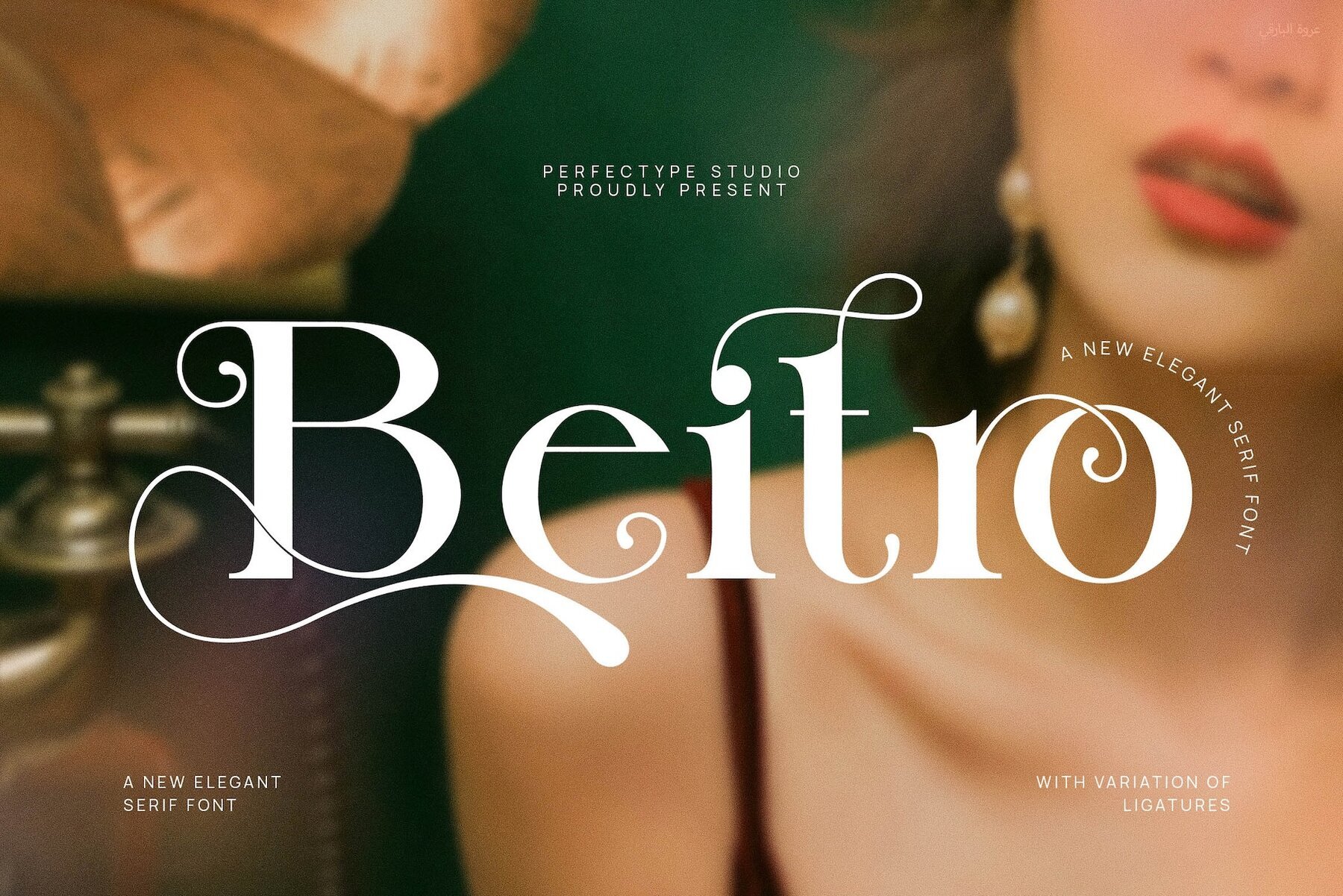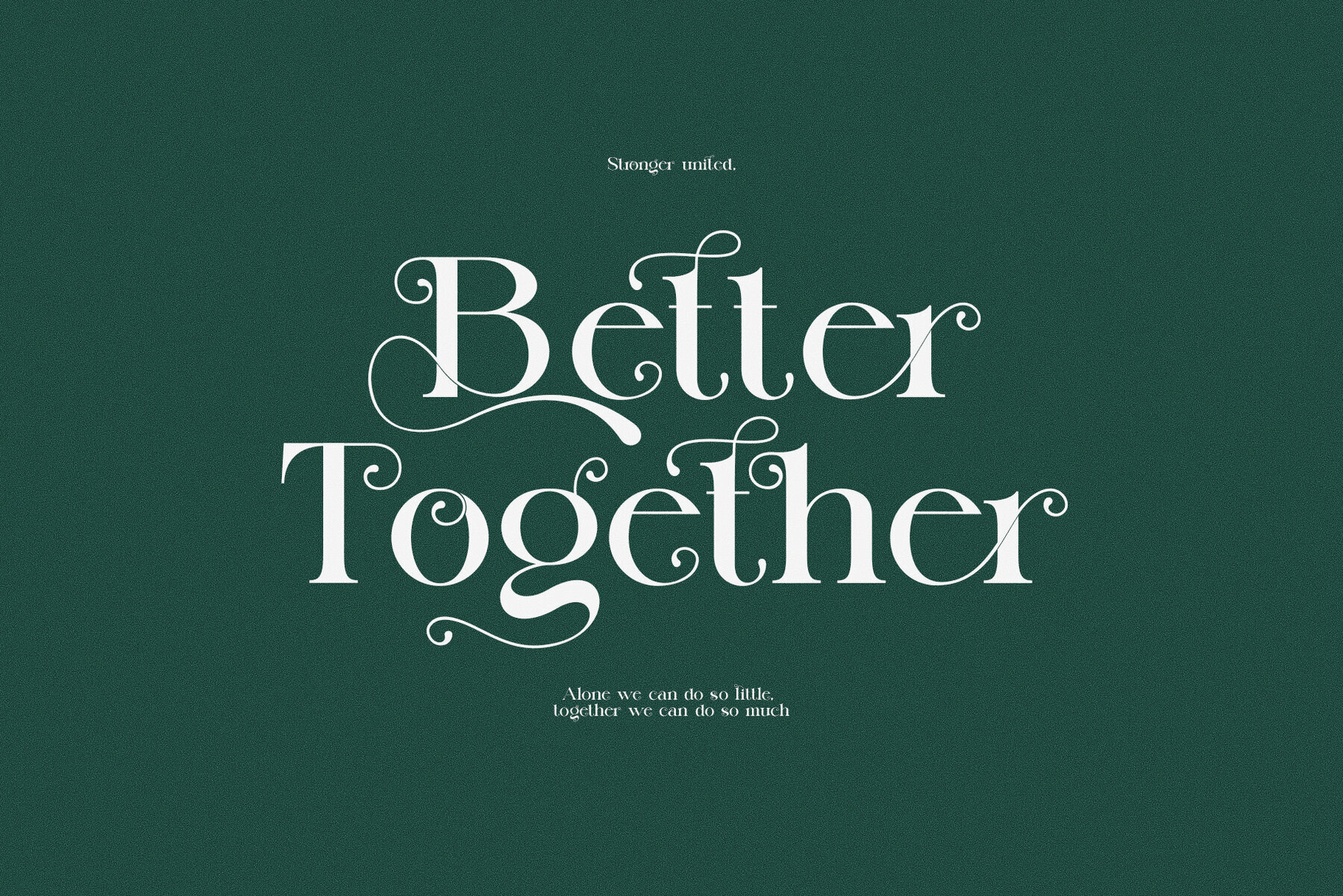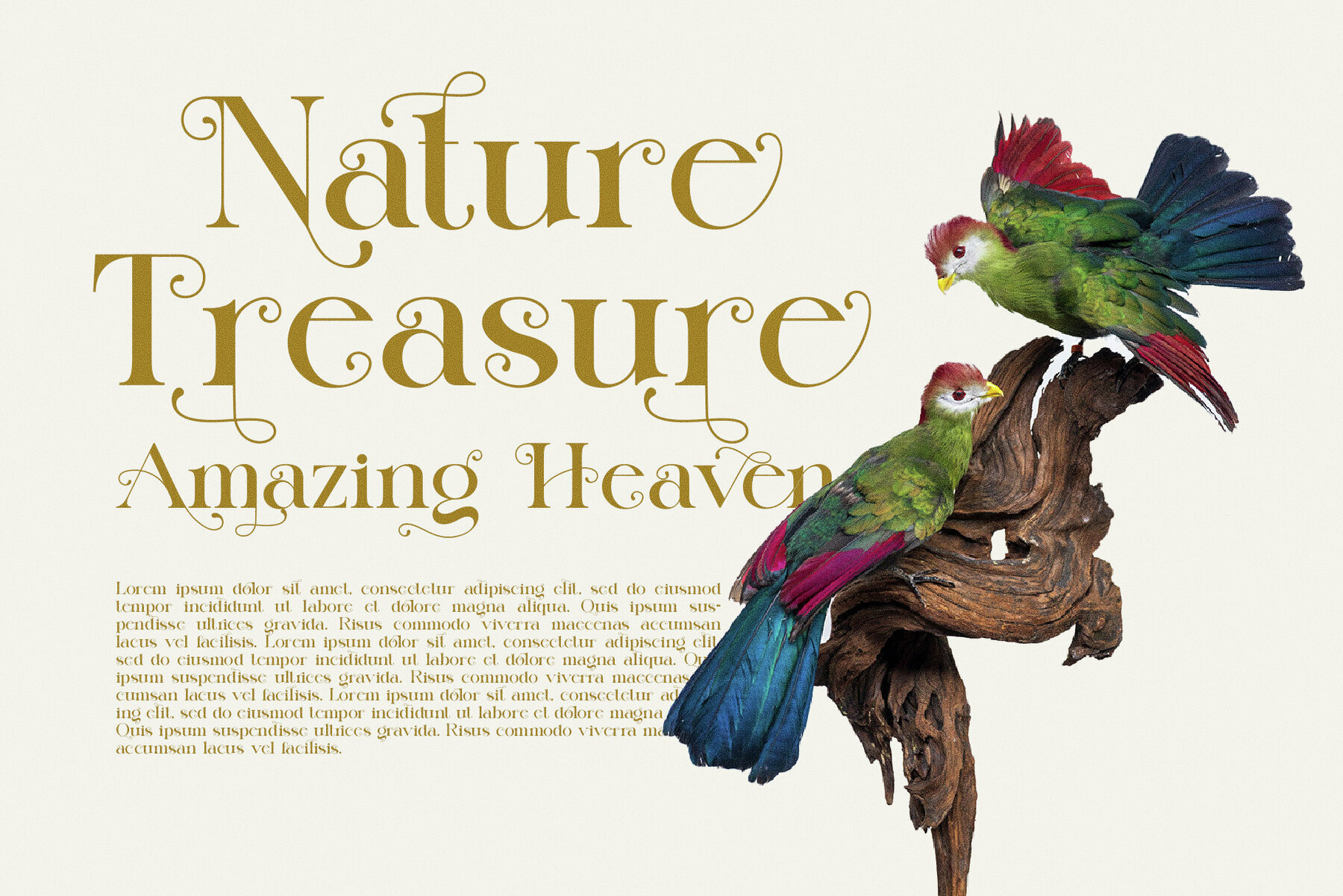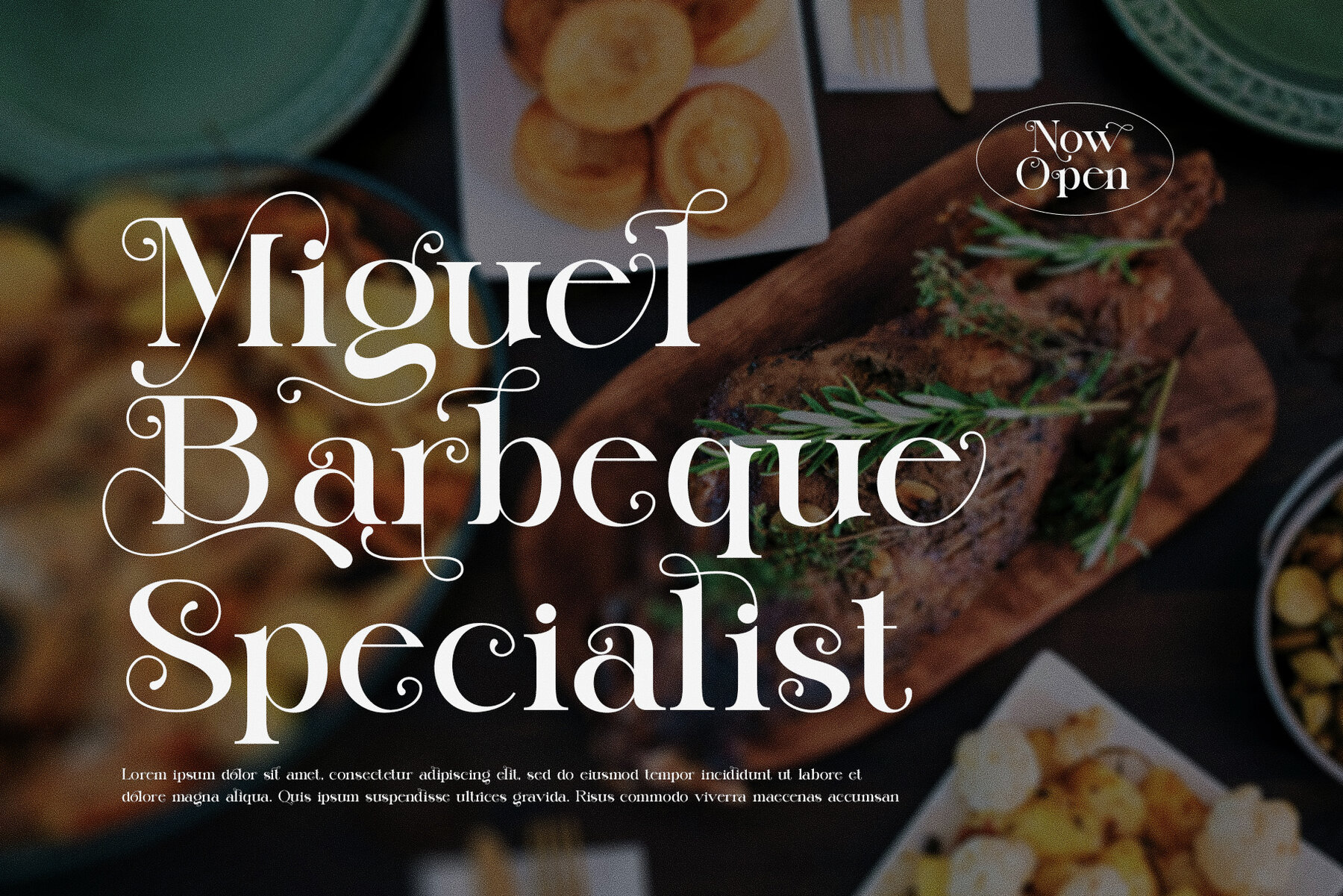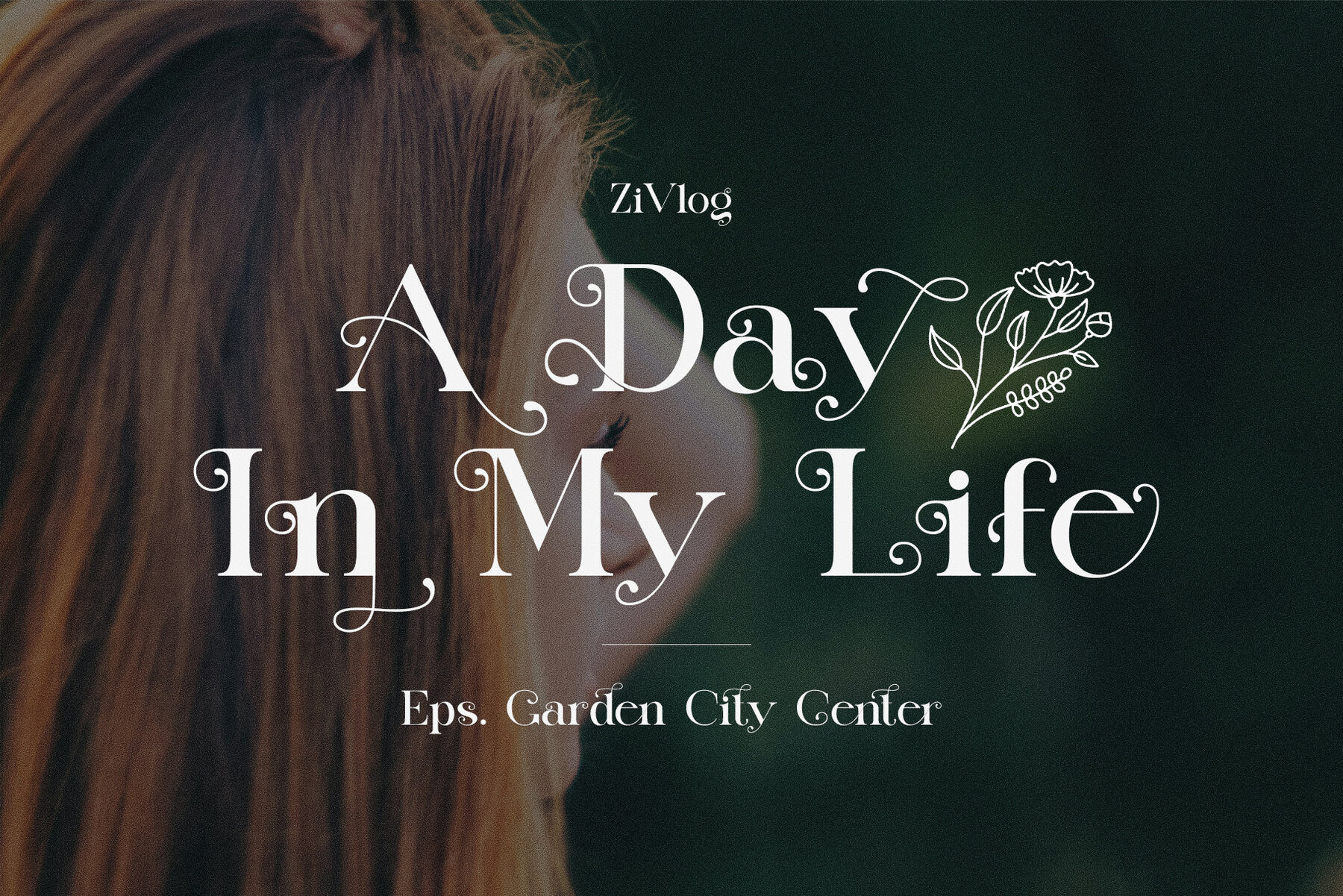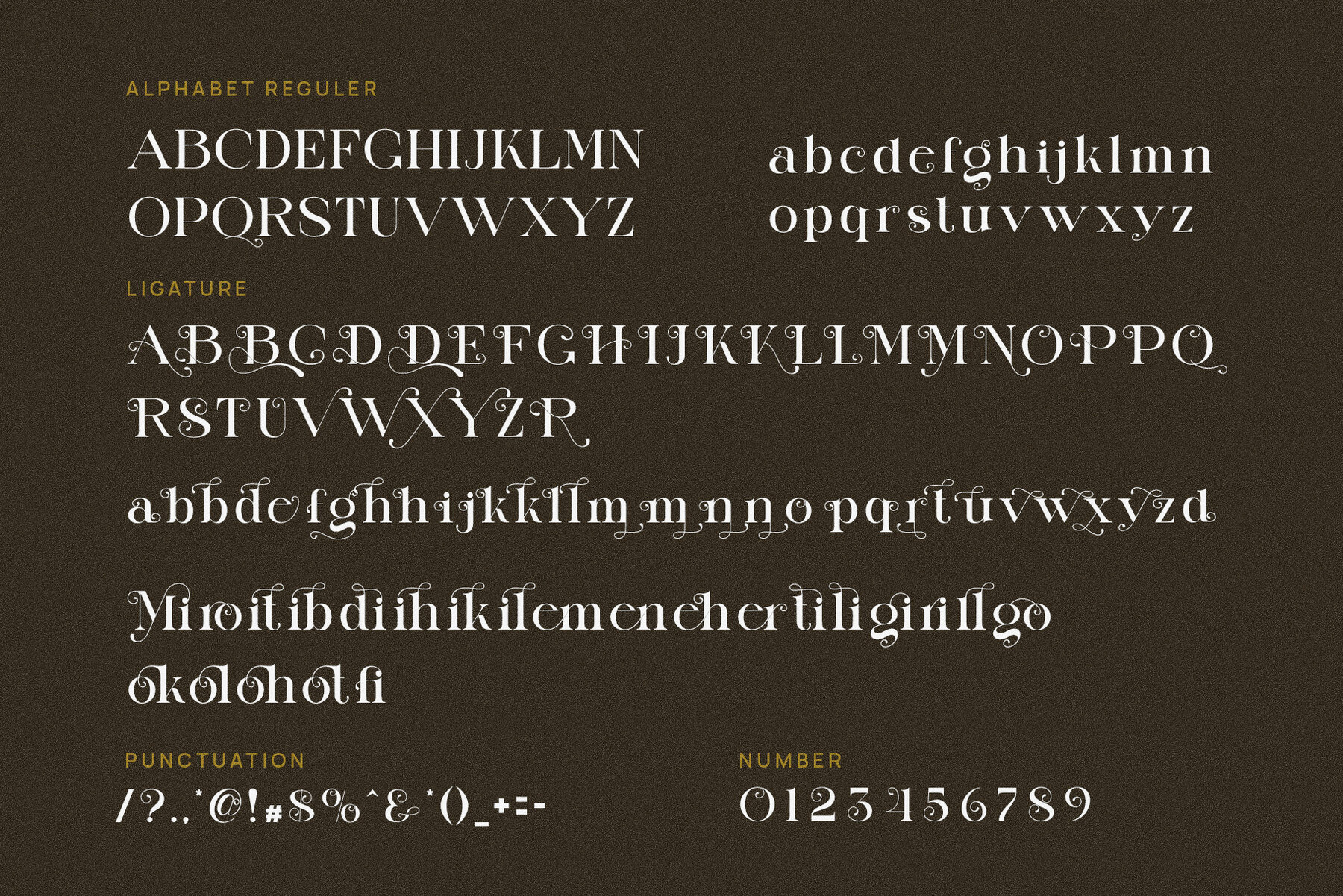
Beitro Font
Beitro
Beitro Elegant Serif Font is a sophisticated typeface that seamlessly blends modernity with timeless elegance. Its meticulously crafted letterforms, featuring unique curves and stylish details, make it ideal for projects requiring both elegance and a contemporary touch. Enhanced by beautiful ligatures and alternate characters, Beitro allows for creative and seamless typography that captivates in a variety of design settings.
This font is designed with a focus on luxury and refinement, making it perfect for high-end branding, logos, and product packaging. Its sleek appearance enhances the visual appeal of websites, advertisements, and editorial layouts, making it a prime choice for industries like fashion, food, boutique, and lifestyle. Whether you're crafting a chic logo, an elegant magazine spread, or a striking advertisement, Beitro's sophisticated style ensures clear and confident communication.
Beyond its visual allure, Beitro offers excellent legibility, suited for both large headlines and body text. The harmonious balance of serif details and smooth lines ensures readability while maintaining an elegant aesthetic. The font’s ligatures and alternate features provide personalized touches, making each design unique and thoughtfully crafted. Beitro is the perfect tool for designers seeking to infuse their projects with elegance and modern appeal, delivering a sense of luxury and professionalism.